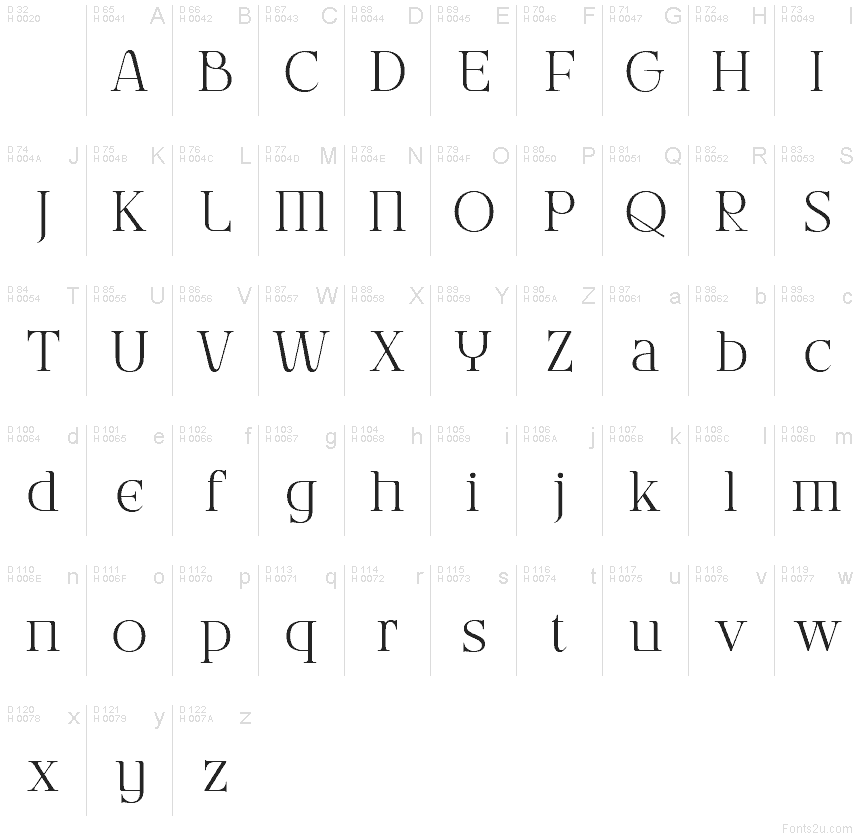
CS Brody Regular Demo
CS Brody font by Craft Supply co. is a free thin retro serif display font. It stands out with razor‑fine hairlines against sturdy verticals, crisp wedge serifs, and a smooth, almost inky curve through each letter, giving it that polished editorial sheen. The contrast feels deliberate, not fragile—elegant without getting fussy—so headlines land with sophistication while still reading clean.
Using CS Brody, you’ll get refined drama that shines on fashion branding, magazine covers, wine or beauty packaging, posters, book jackets, and cafe menus. The rhythm is tight and poised, so keep it at larger sizes to let the hairlines breathe. For balance, pair this free font with a simple grotesque sans for body copy or captions.